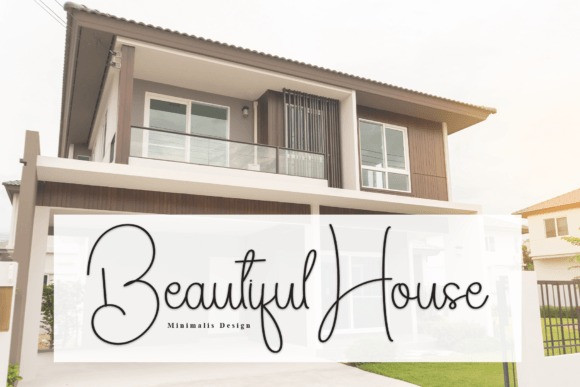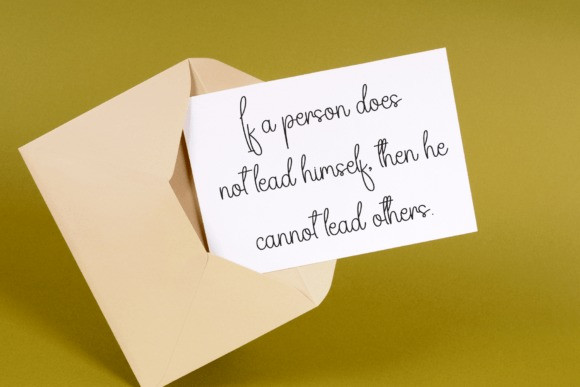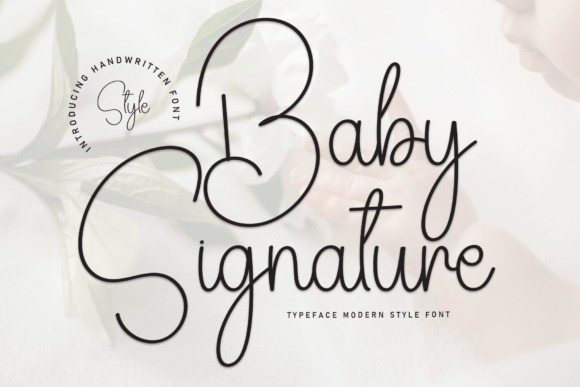
Baby Signature Typeface
Baby Signature Typeface is an endearing handwritten font that captures the sweet essence of innocence and playfulness. With its charming strokes and delightful curves, this font adds a touch of whimsy to any project. Ideal for baby announcements, playful designs, or anything that requires a warm and personal feel, Baby Signature brings a sense of joy and spontaneity to your typography. Embrace the youthful spirit with this delightful handwritten font for a truly heartwarming touch in your creations.